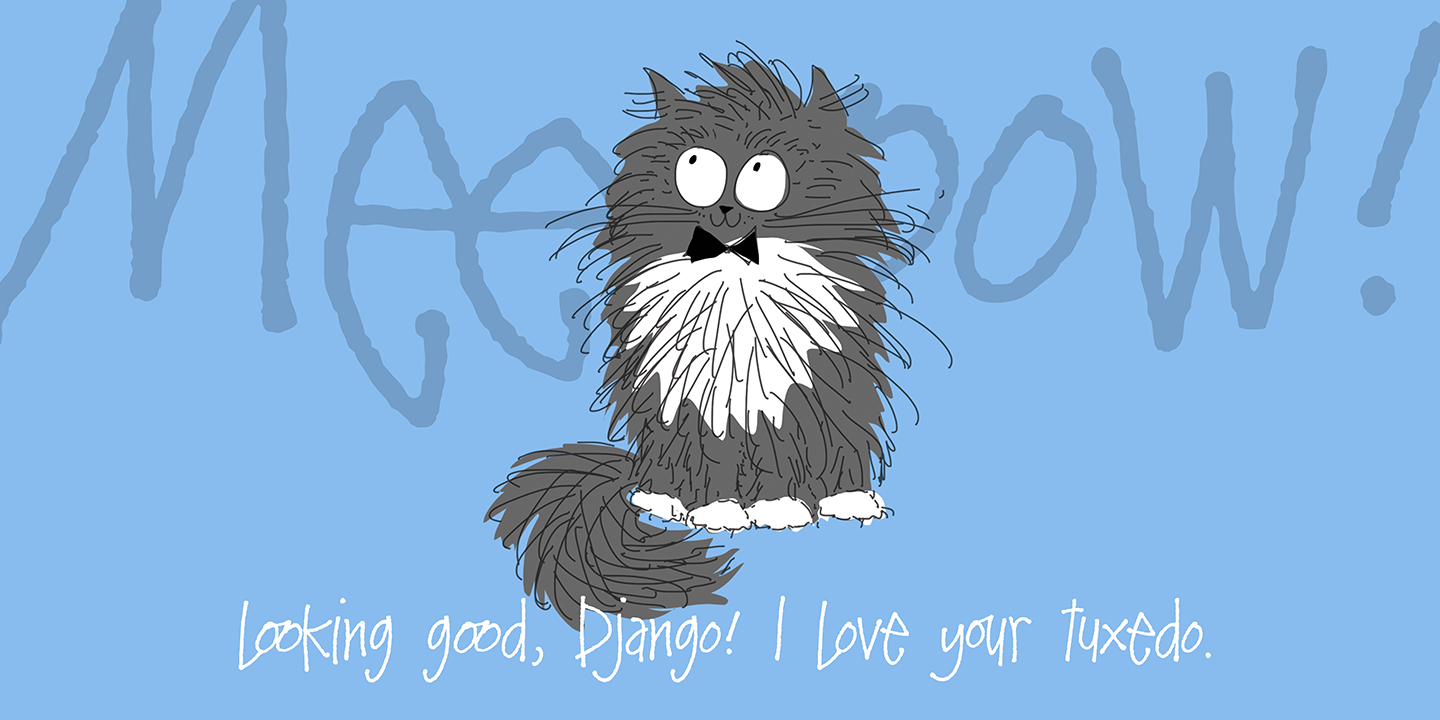
Solstice Font Free Download delivers celestial typography that combines cosmic elegance with contemporary functionality for seasonal design applications. This commercial font requires purchase for business use, but you can download it for free for testing purposes to evaluate its distinctive astronomical characteristics in your creative projects.
Solstice Font excels across diverse design applications including seasonal event marketing, astronomical society communications, spiritual wellness branding, seasonal restaurant menus, cosmic-themed packaging, astrological publications, celestial jewelry marketing, and seasonal hospitality materials. Its cosmic character makes it particularly effective for projects requiring celestial sophistication while maintaining contemporary appeal, ensuring your designs convey seasonal magic and astronomical wonder across both digital platforms and specialty print materials.
What makes Solstice Font truly exciting is its masterful interpretation of celestial movements and seasonal transitions enhanced with modern design precision that creates compelling cosmic communications. The font features carefully crafted letterforms that incorporate subtle astronomical elements and seasonal proportions reminiscent of star charts and celestial navigation while maintaining excellent readability and professional application. Its distinctive character construction draws inspiration from solstice phenomena and cosmic cycles, creating text that feels both astronomically grounded and contemporarily relevant. The font's optimized spacing and harmonious character relationships ensure superior performance across various seasonal applications while preserving the characteristic mystique that defines its celestial personality.
Solstice Font presents a comprehensive type family designed to support diverse seasonal and cosmic design requirements. The family typically includes light, regular, medium, bold, and heavy weights, along with corresponding italic variations that provide complete flexibility for celestial typography compositions. Many versions feature extended character sets with astronomical symbols, seasonal ornaments, and specialized glyphs that enhance authentic cosmic aesthetic applications.
The Solstice Font Free Download represents exceptional value for designers working on seasonal and astronomy-focused projects across multiple sectors. Whether developing seasonal event branding, creating astronomical education materials, designing spiritual wellness communications, or producing cosmic entertainment content, this font delivers consistent celestial charm and memorable seasonal appeal. Its astronomical characteristics make it particularly effective for industries including seasonal hospitality, spiritual wellness, astronomical education, and cosmic entertainment sectors seeking to communicate celestial wonder and seasonal significance.
For optimal results, Solstice Font combines beautifully with cosmic color palettes and seasonal design elements that reinforce its celestial message. Its mystical presence excels in headline applications while maintaining excellent performance in seasonal communication contexts. The font's cosmic sophistication and seasonal appeal make it an invaluable tool for creating enchanting communications that resonate with audiences appreciating astronomical beauty and seasonal celebrations.